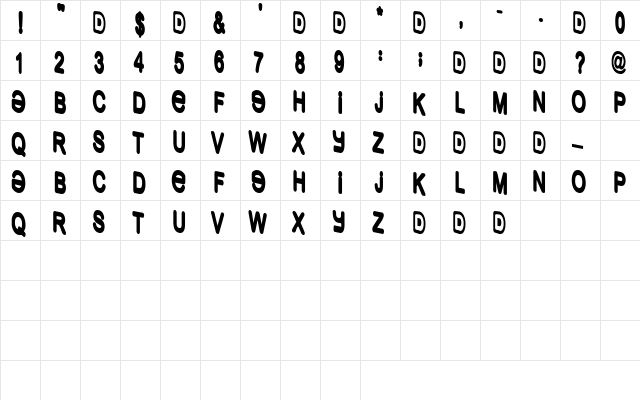
TwoFish Regular
Design Context for TwoFish Typeface
TwoFish offers clean, dependable letterforms without strong stylistic allegiance, making it a practical choice for designers who need flexibility.